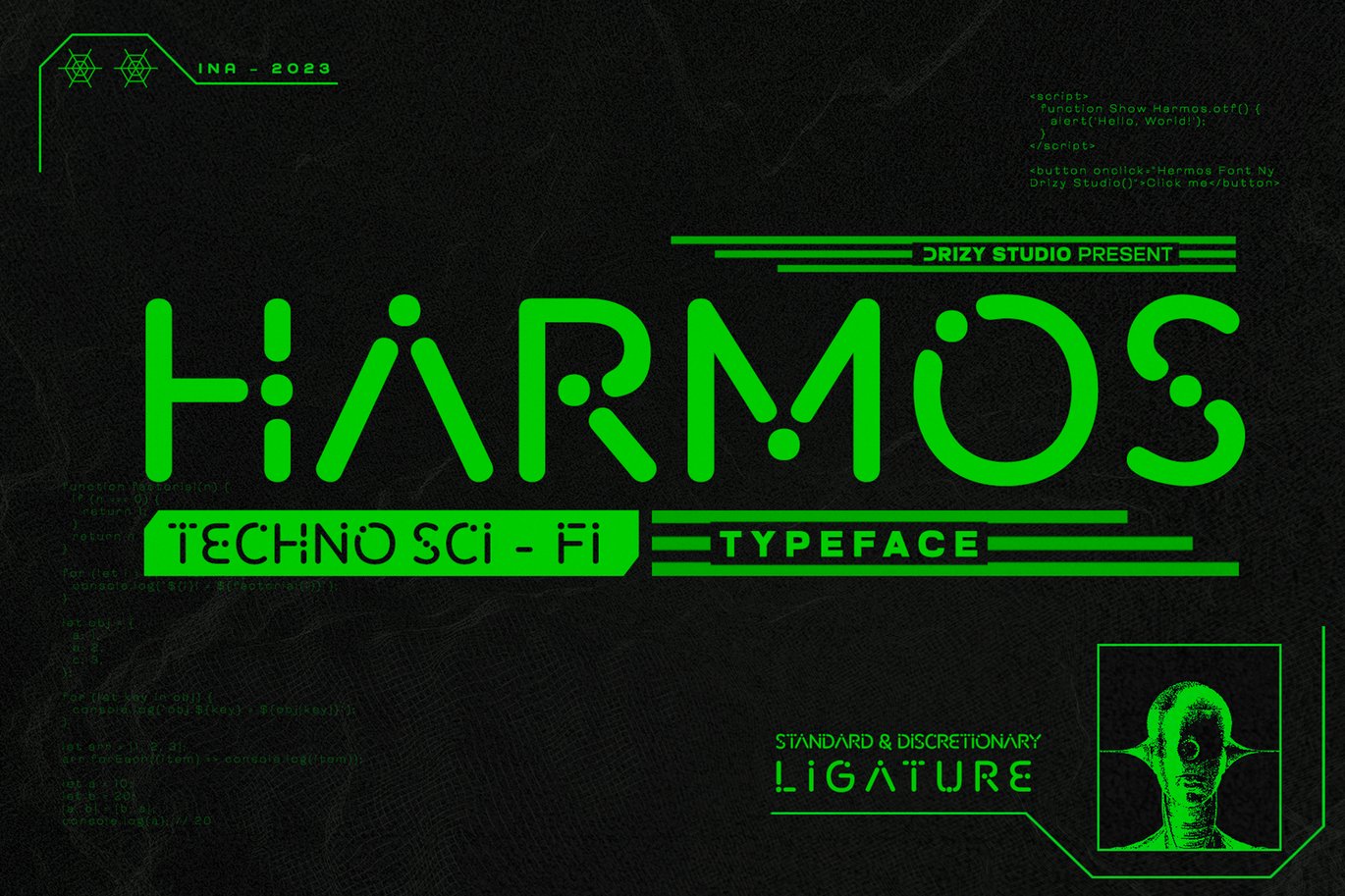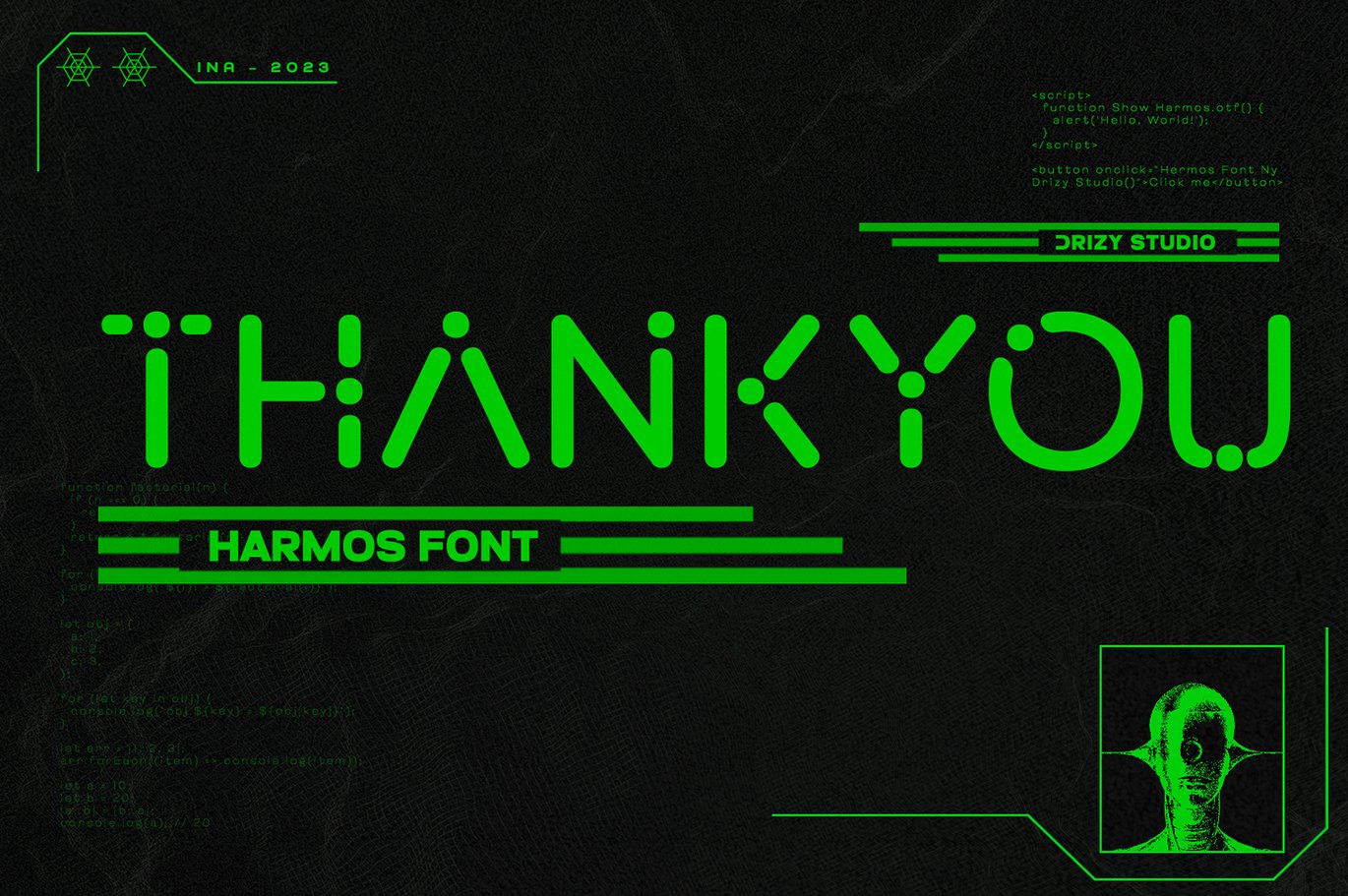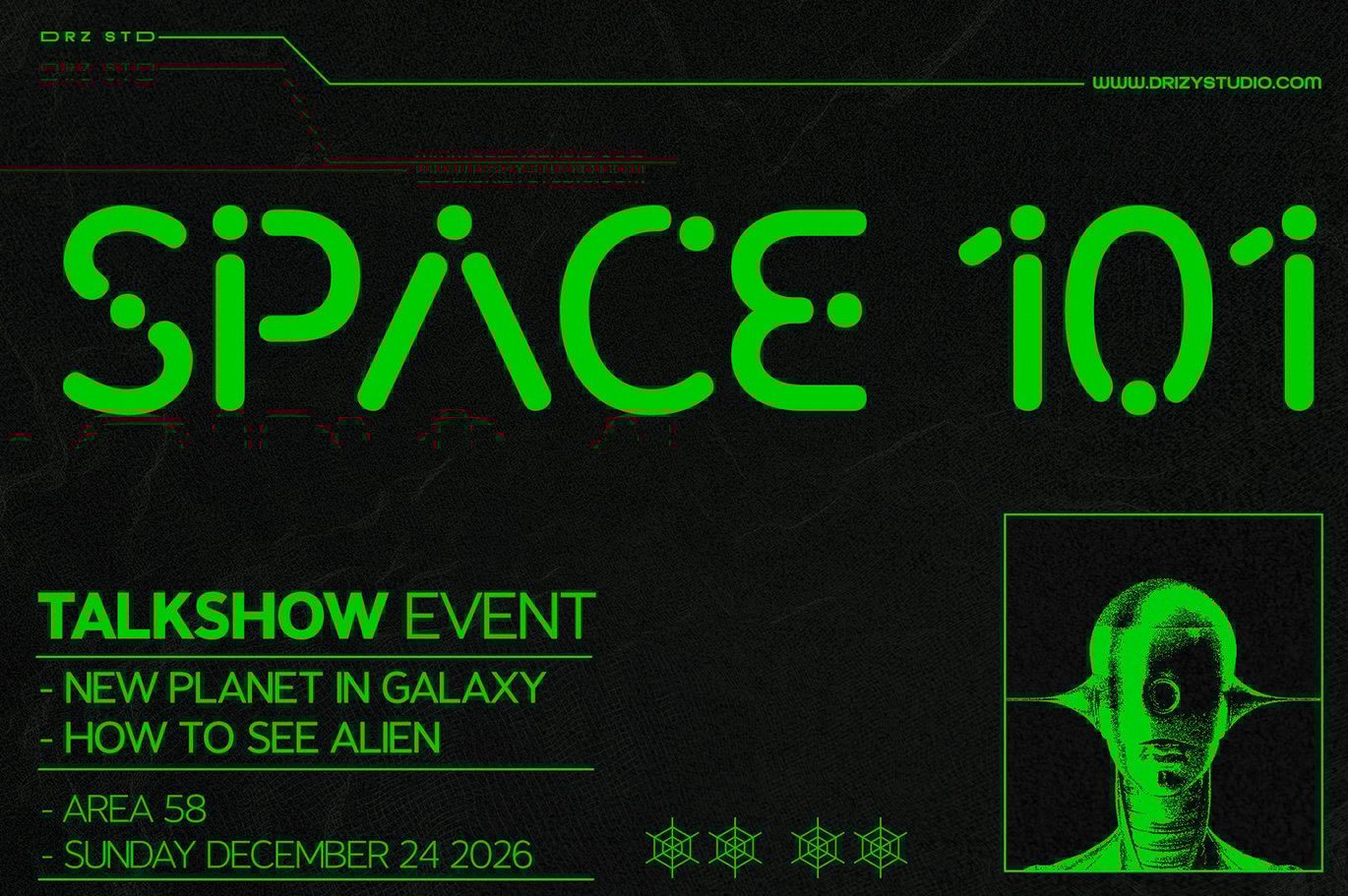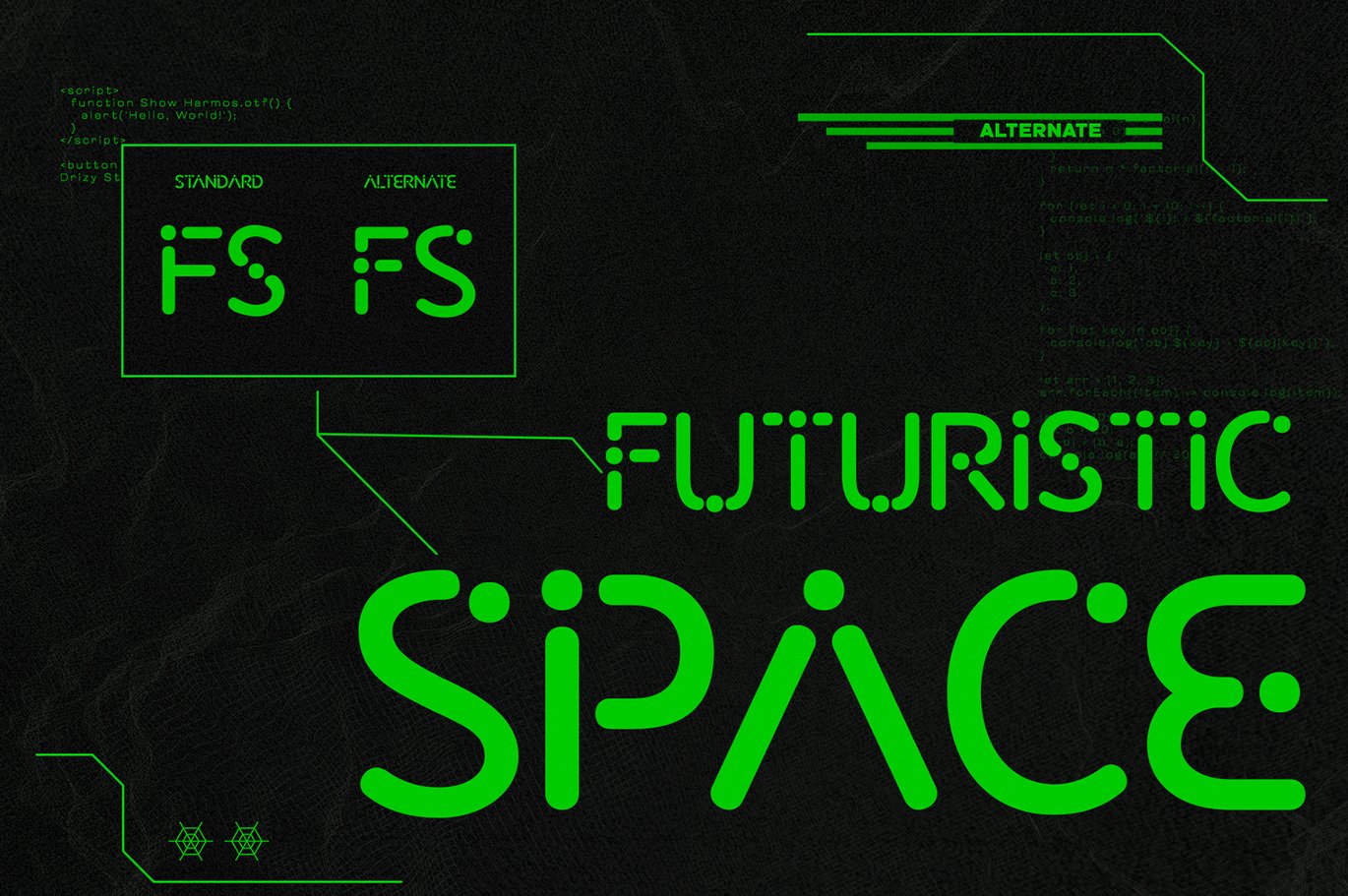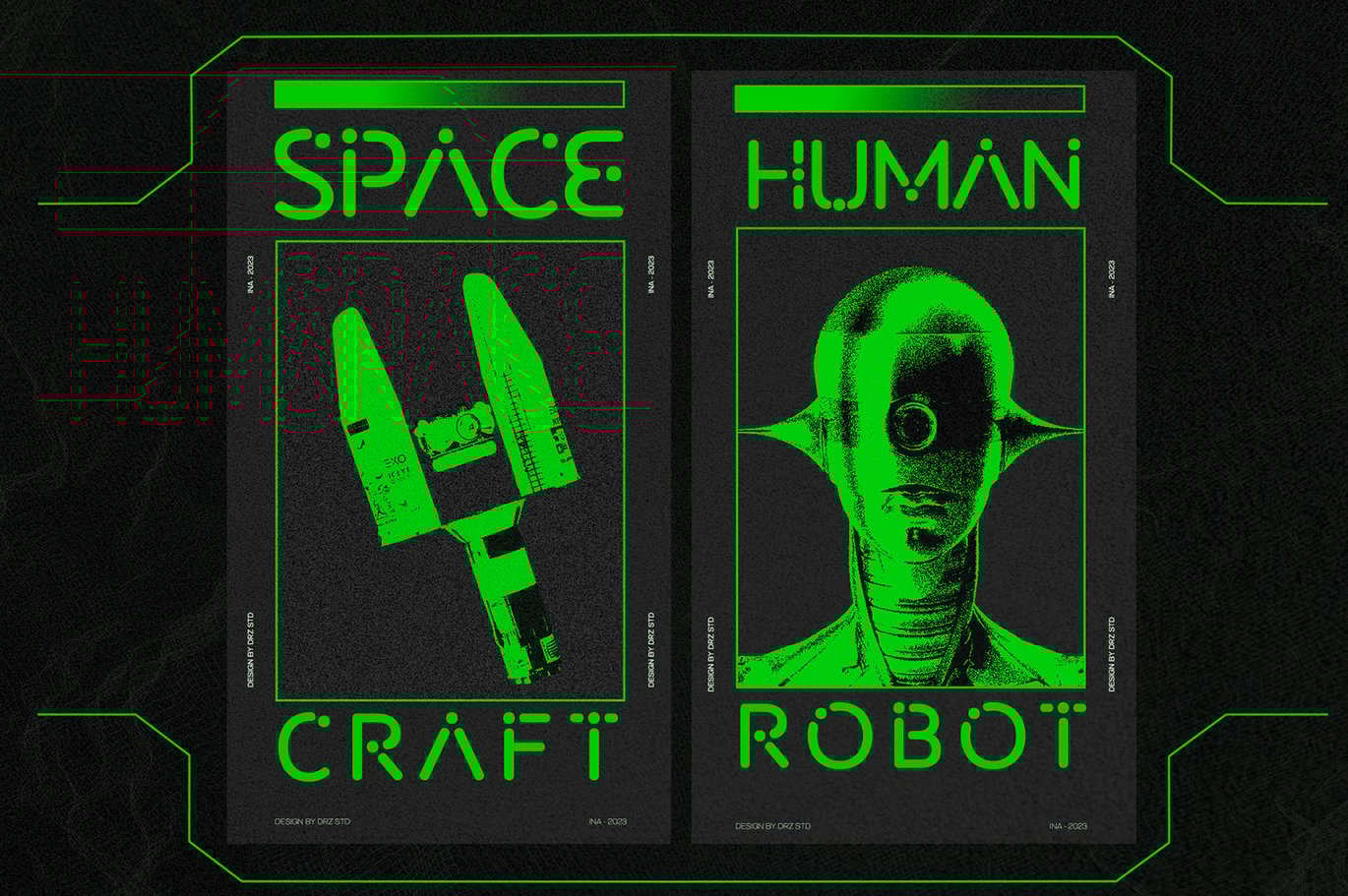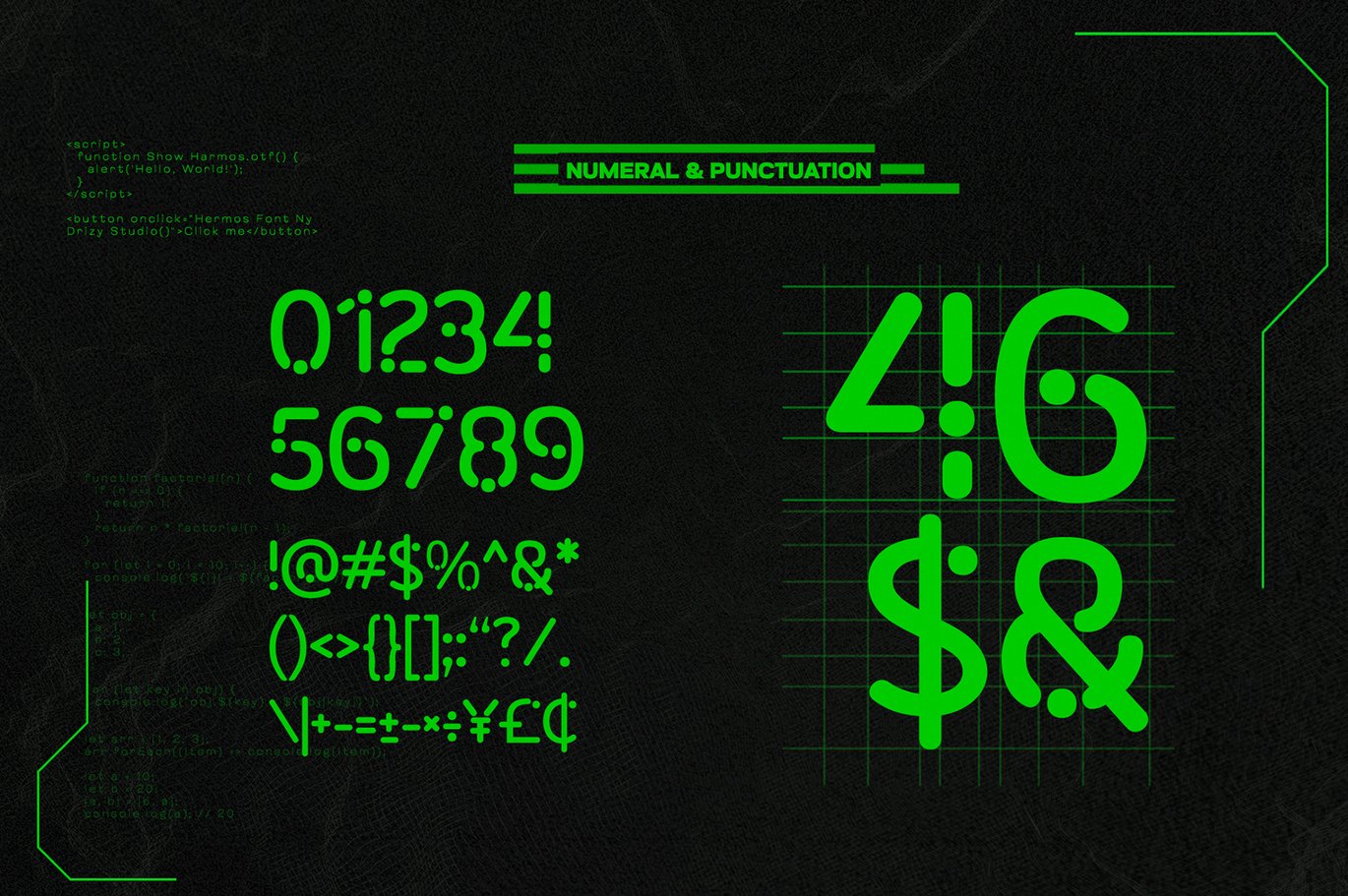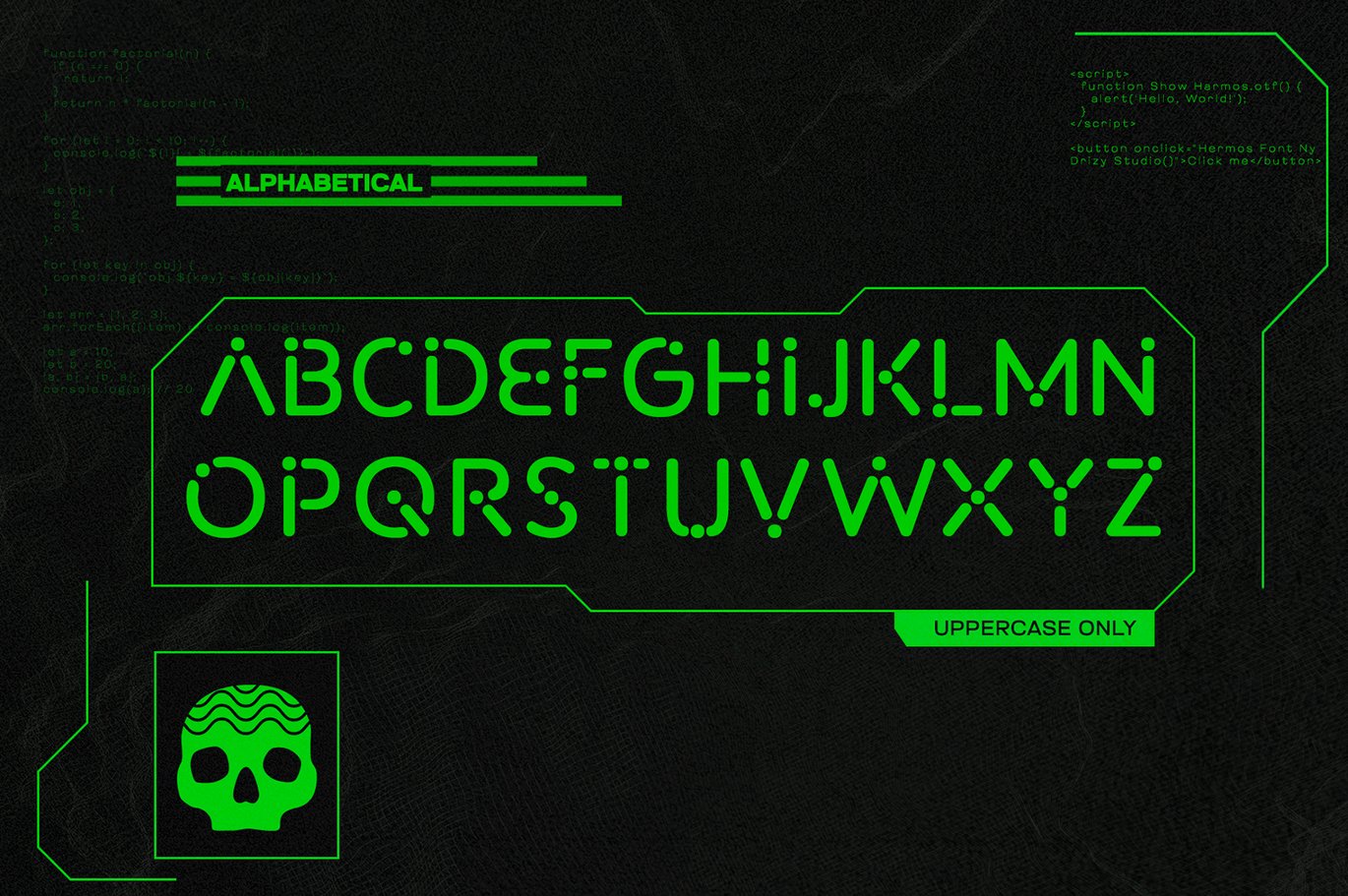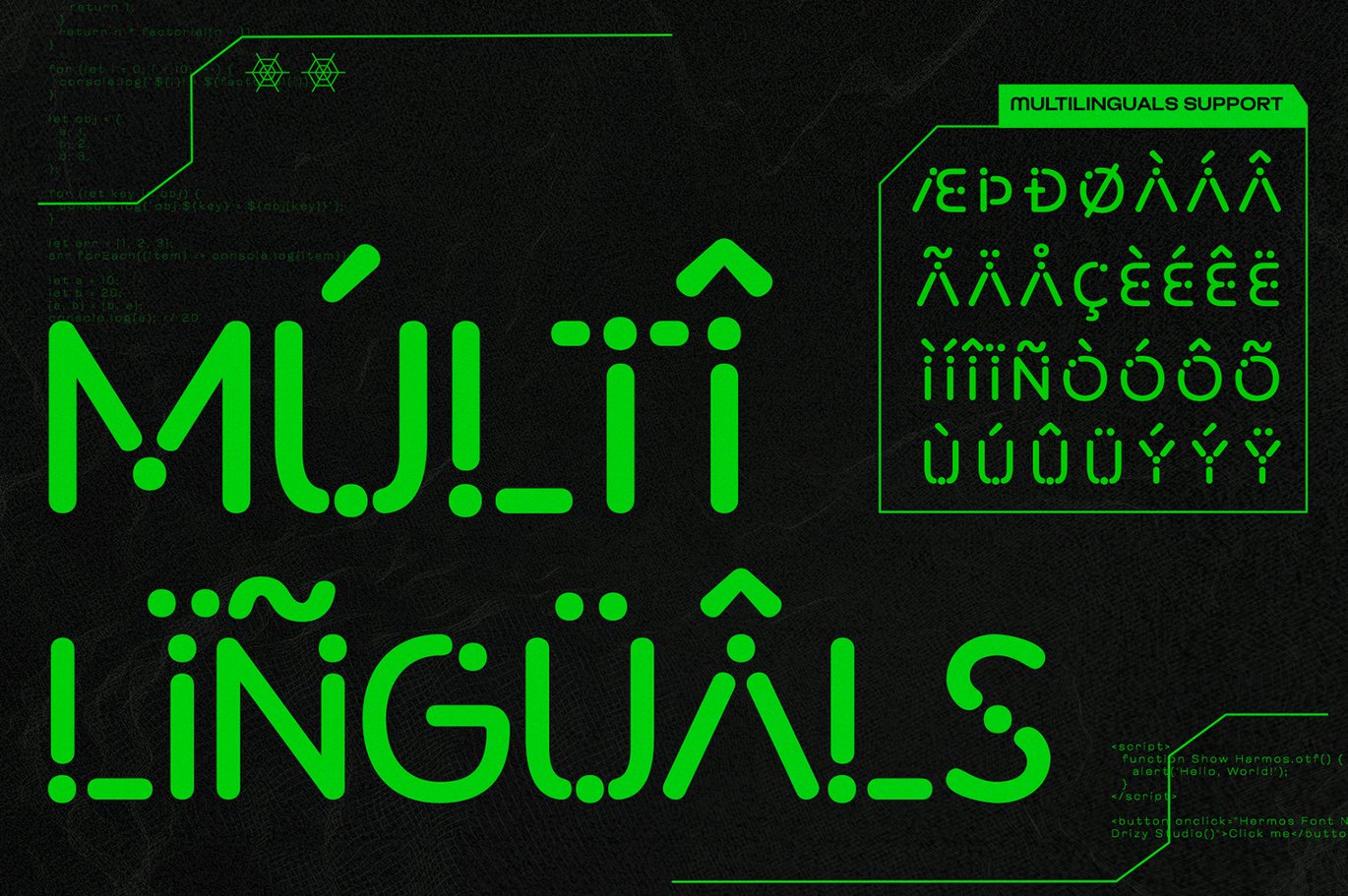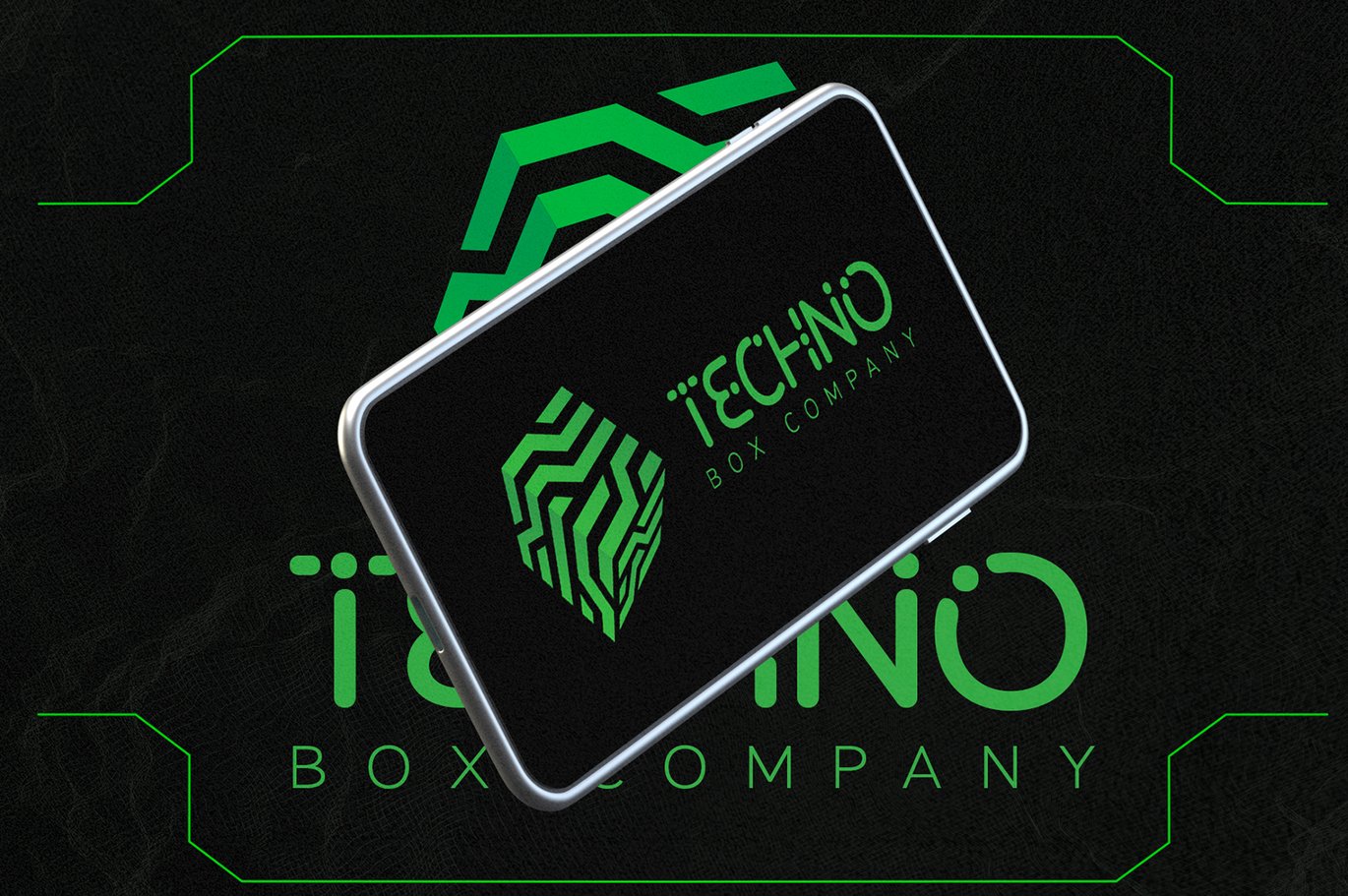
Harmos – Techno Sci-fi Font
Harmos – Techno Sci-fi Font from Drizy Studio. Offering all the styles you need for your projects.
Harmos features:
Uppercase & Lowercase
Alternates